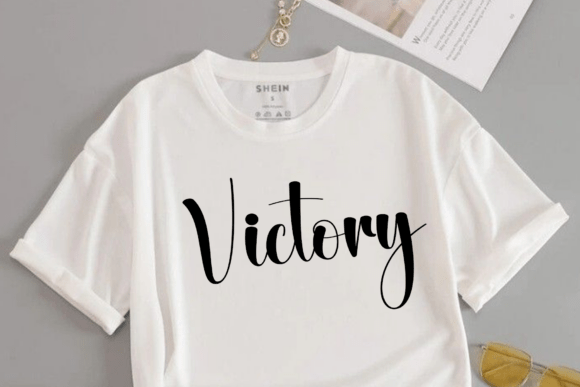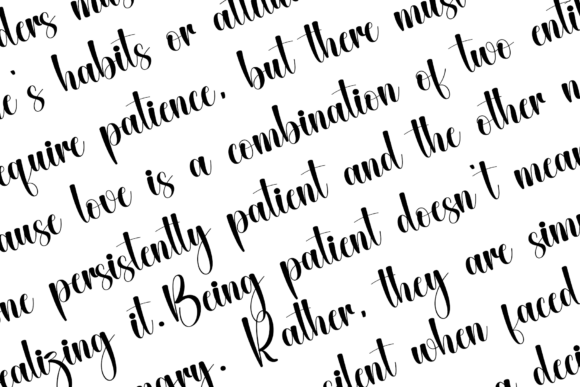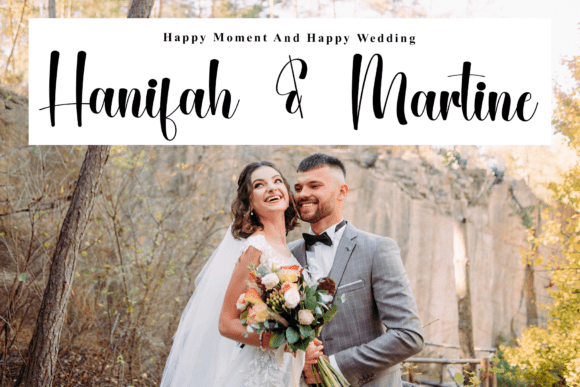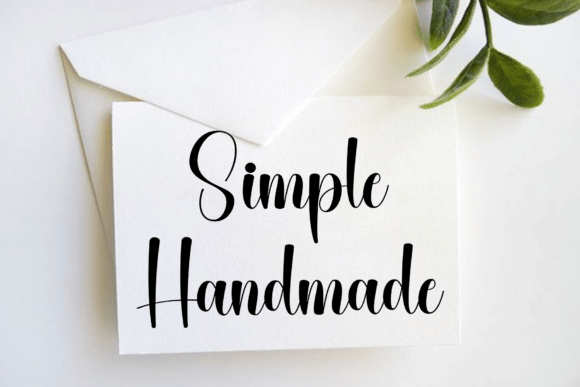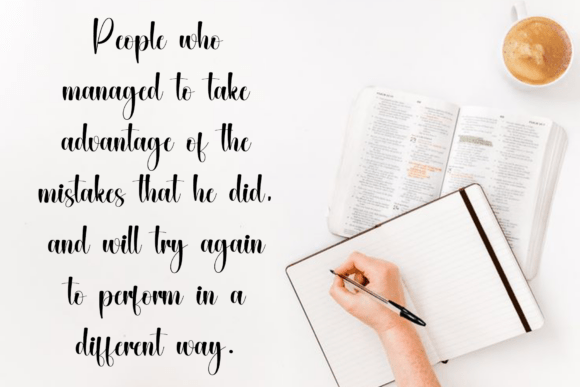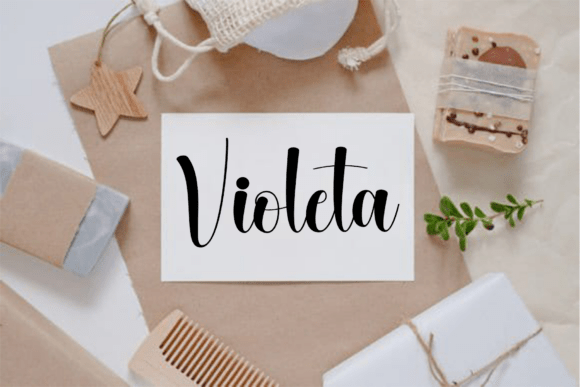
Introducing Christmas December Font: The Elegant Handwritten Script for Luxurious Designs
Are you looking for a font that exudes elegance, sophistication, and a touch of vintage charm? Look no further than the Christmas December Font, a beautiful handwritten script that combines the classic looping style of vintage cursive with the ease of modern, clean script. This stunning typeface is perfect for designers and crafters seeking to add a luxurious touch to their creations.
The Characteristics of Christmas December Font
Christmas December Font is an expressive typeface that features dramatic sweeps and connected strokes, lending a sophisticated, personalized feel to any design. Its Victorian-inspired style is reminiscent of historical correspondence or a bespoke seal, evoking a sense of luxury and refinement. The font’s clean lines, however, give it a versatile, timeless appeal that works seamlessly in both formal and informal luxury contexts.
Perfect for Luxurious Wedding Invitations and Branding
Christmas December Font is perfectly suited for luxurious wedding invitations, high-end branding, custom product signatures, and elegant editorial headers. Its elegant, cursive style adds a touch of sophistication and glamour to any design, making it ideal for couples seeking to create bespoke wedding stationery or businesses looking to establish a luxurious brand identity.
Key Features of Christmas December Font
- PUA-encoded: Effortless access to all glyphs, swashes, and alternate characters, making it easy to customize and personalize your designs.
- Elegant, handwritten script: Combines the classic looping style of vintage cursive with the ease of modern, clean script.
- Dramatic sweeps and connected strokes: Lends a sophisticated, personalized feel to any design.
- Versatile and timeless appeal: Works seamlessly in both formal and informal luxury contexts.
Why Choose Christmas December Font?
By choosing Christmas December Font, you’ll be able to add a touch of authentic, sophisticated artistry to your creative work. This font is perfect for designers and crafters seeking to create high-quality, memorable designs that stand out from the crowd. Whether you’re working on a luxurious wedding invitation, a high-end branding project, or a custom product signature, Christmas December Font is the perfect choice.
Tips for Using Christmas December Font
To get the most out of Christmas December Font, here are a few tips to keep in mind:
- Pair with contrasting fonts: Combine Christmas December Font with a contrasting font to create visual interest and hierarchy in your design.
- Experiment with swashes and glyphs: Take advantage of the font’s PUA-encoded features to add unique touches and personality to your design.
- Use for headlines and titles: Christmas December Font is perfect for headlines and titles, where its elegant, cursive style can shine.
Christmas December Font is a stunning, elegant handwritten script that embodies the classic, looping style of vintage cursive combined with the ease of modern, clean script. With its sophisticated, personalized feel and versatile, timeless appeal, this font is perfect for designers and crafters seeking to add a luxurious touch to their creations. Whether you’re working on a luxurious wedding invitation, a high-end branding project, or a custom product signature, Christmas December Font is the perfect choice.